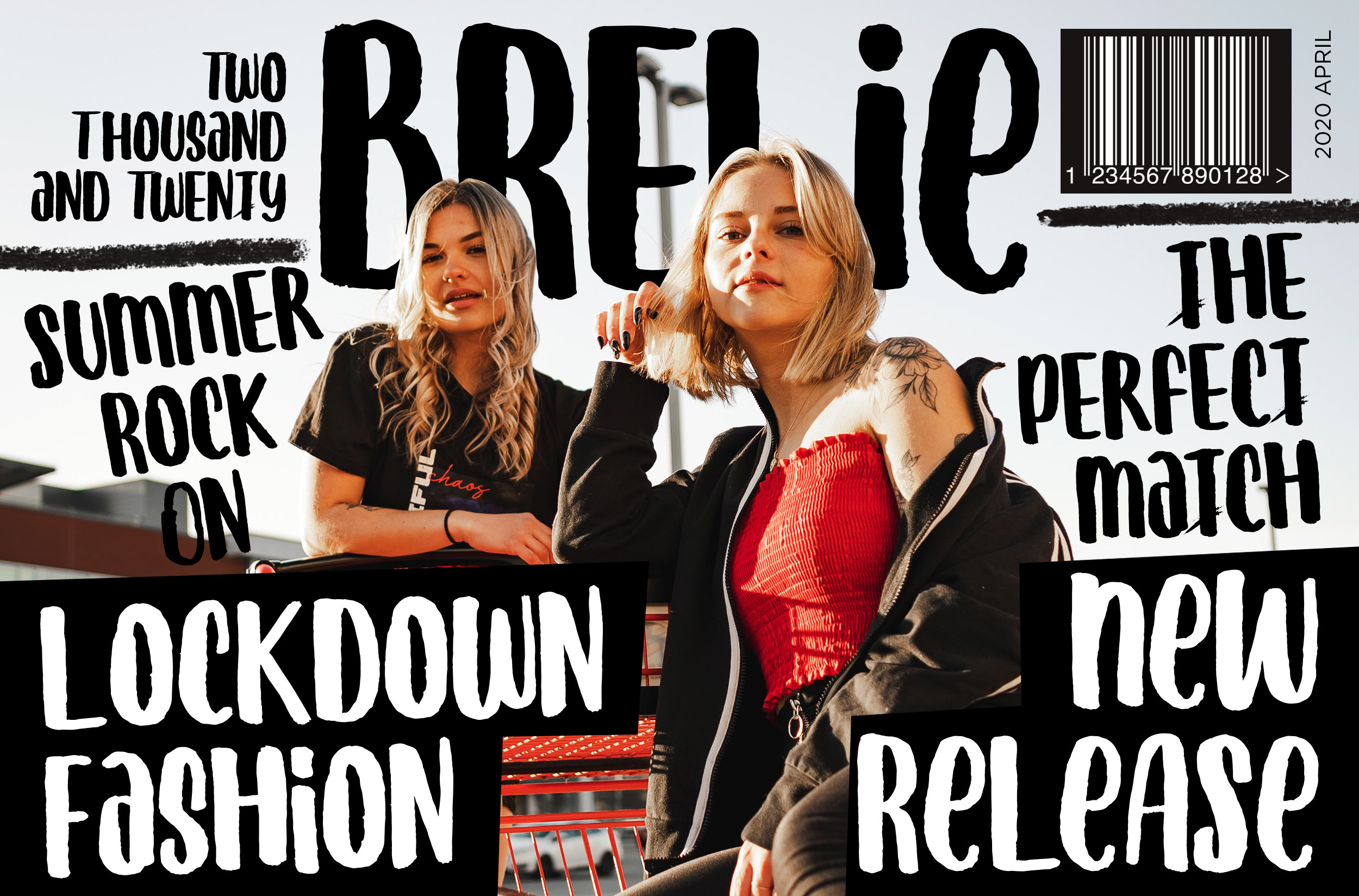
Brelie - Brush Handwritten Font
Brelie is a handwritten font using brush pen with an approach to the fashion magazine looks that specifically using handwriting and lettering elements for the visual design.
Perfectly fit for a fashion project, social-media content, branding, magazine layout, presentation, you name it.